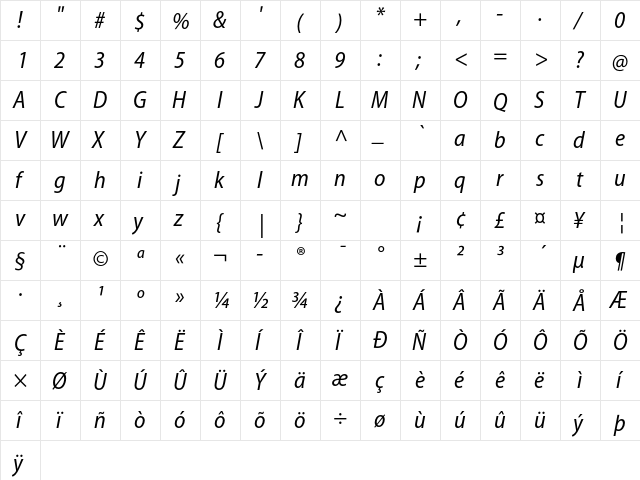
Myriad Pro SemiCondensed Italic Font Preview
| Designer | Robert Slimbach and Carol Twombly with Fred Brady and Christopher Slye |
Design Context for Myriad Pro Typeface
Myriad Pro offers clean, dependable letterforms without strong stylistic allegiance, making it a practical choice for designers who need flexibility. Its italic angle brings a sense of urgency and motion to the letterforms. The condensed width makes it efficient for tight spaces without sacrificing legibility.
Pro Tip: Try Myriad Pro for annotation and caption copy alongside an upright companion — the contrast in angle creates a dynamic but ordered typographic system.